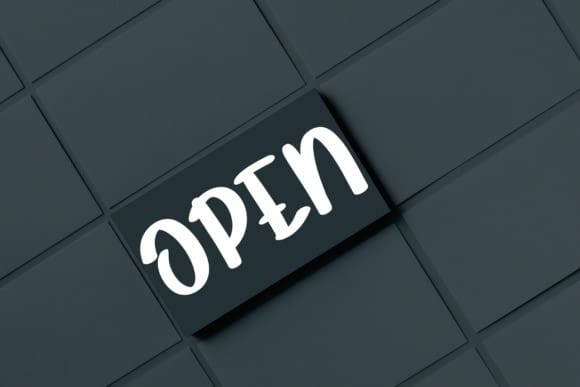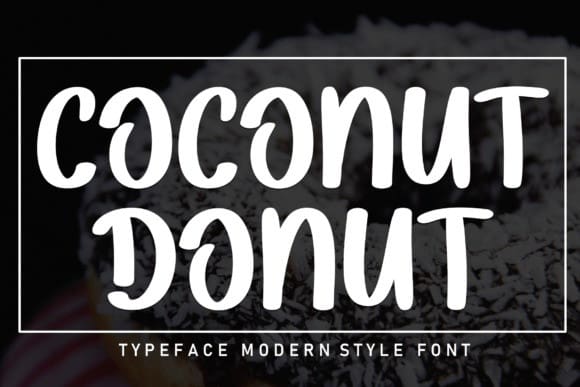
Coconut Donut Font
Coconut Donut Font is a sweet and friendly handwritten font. Fresh and cute, this font is ideal for writing wedding invitations, cards, or any other design that might need a fun touch!